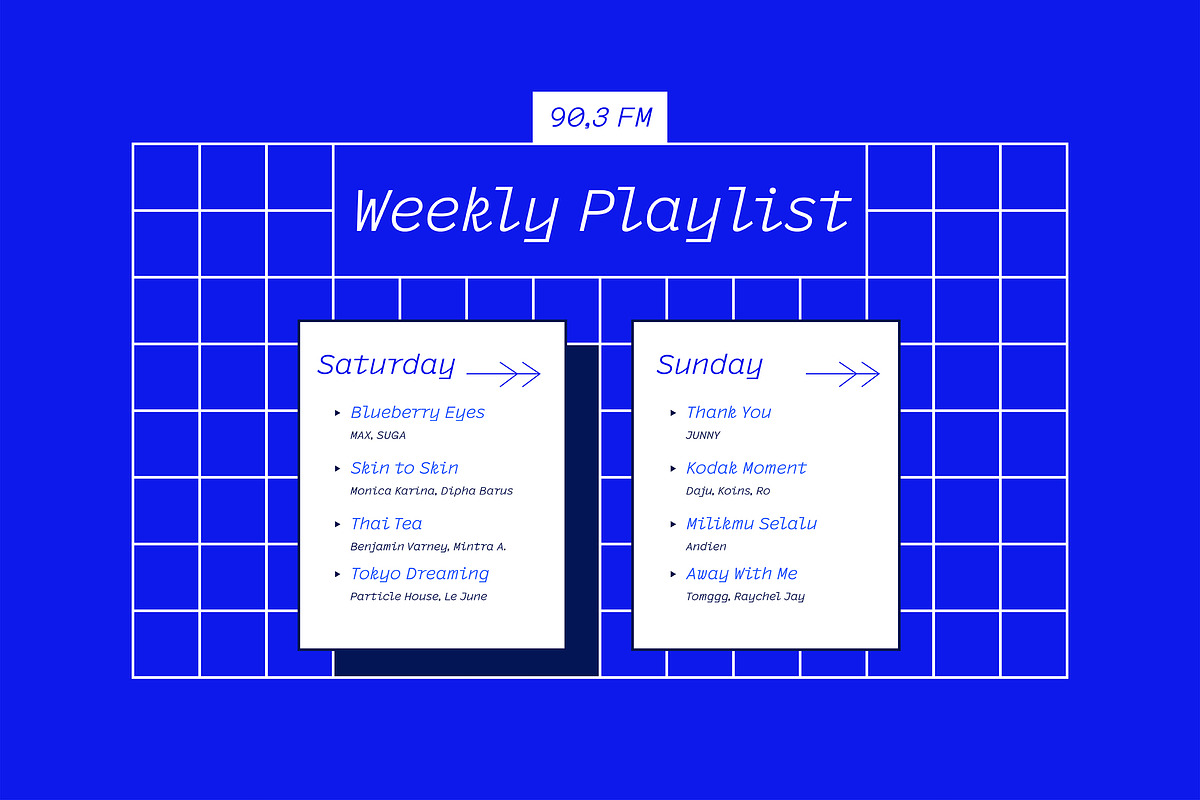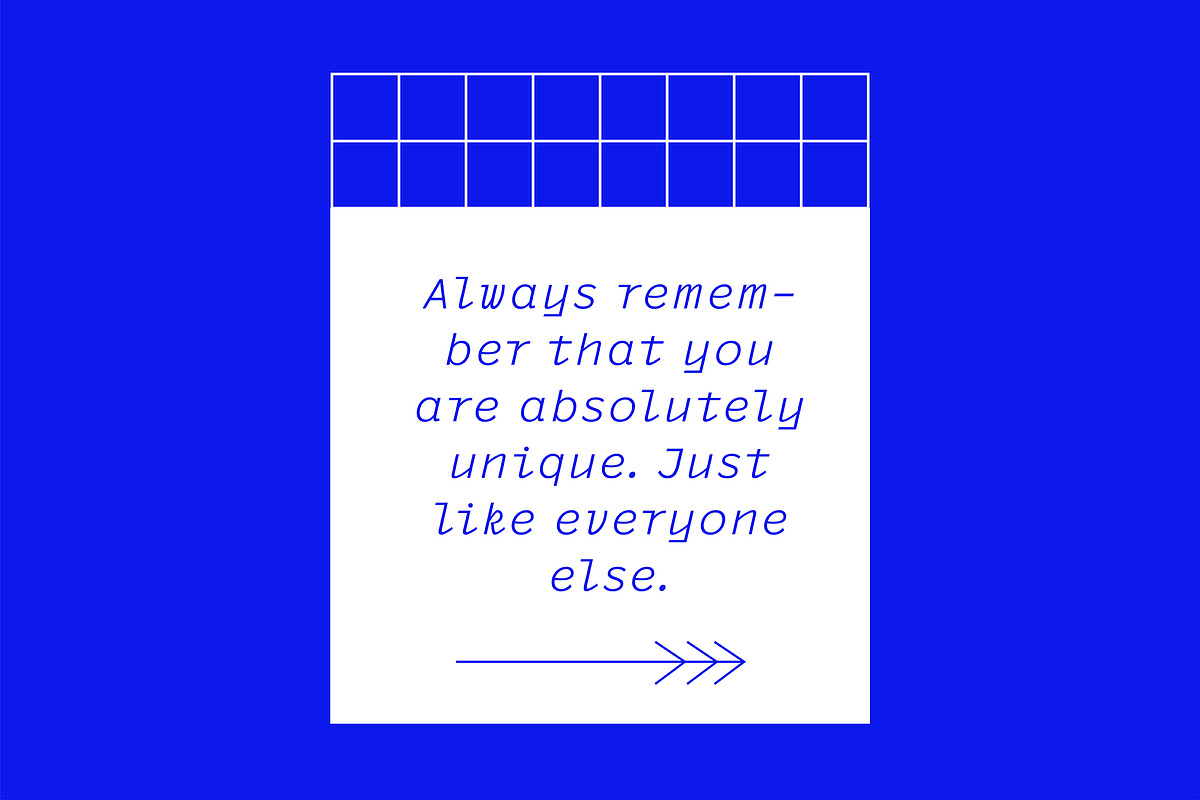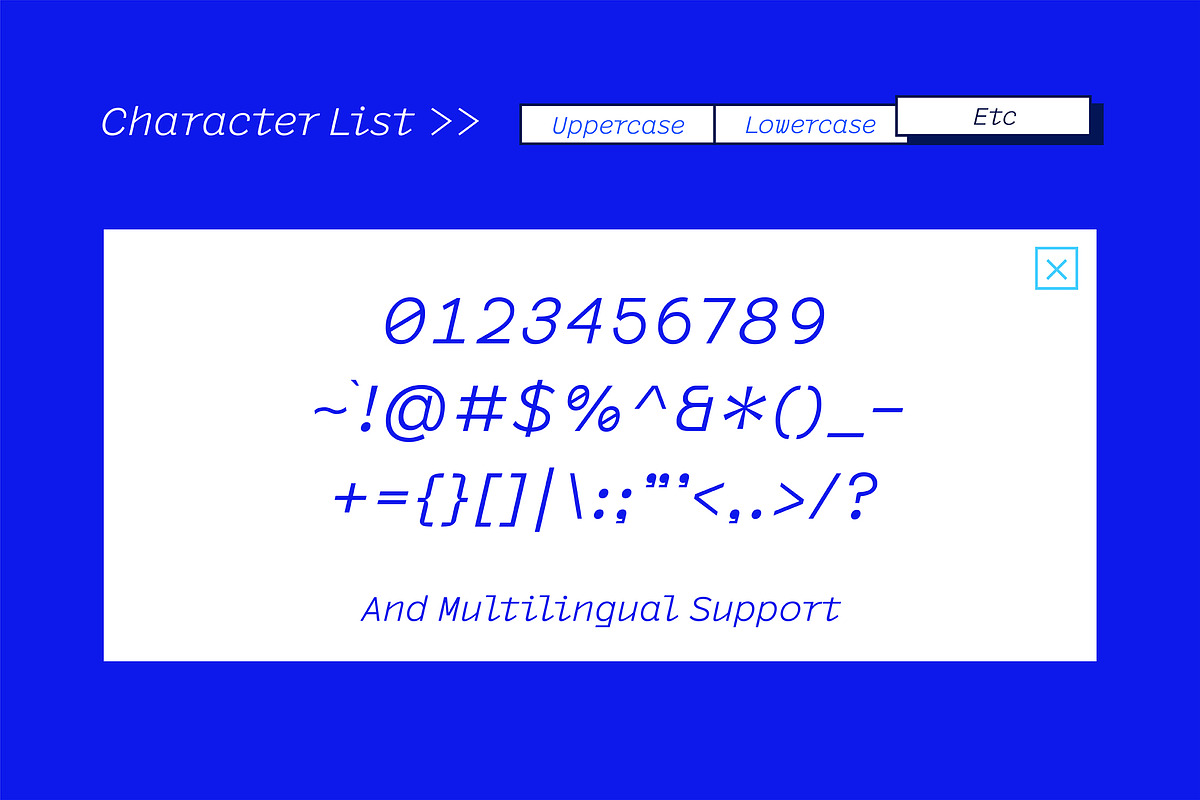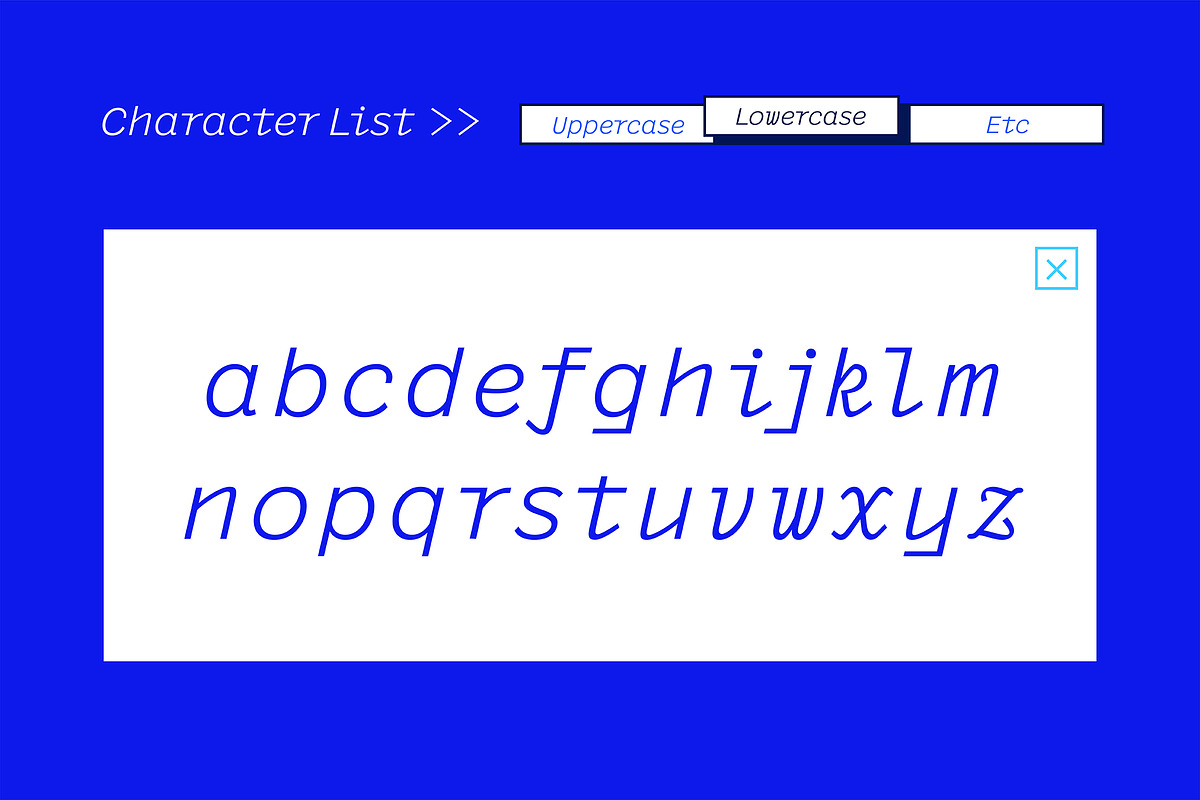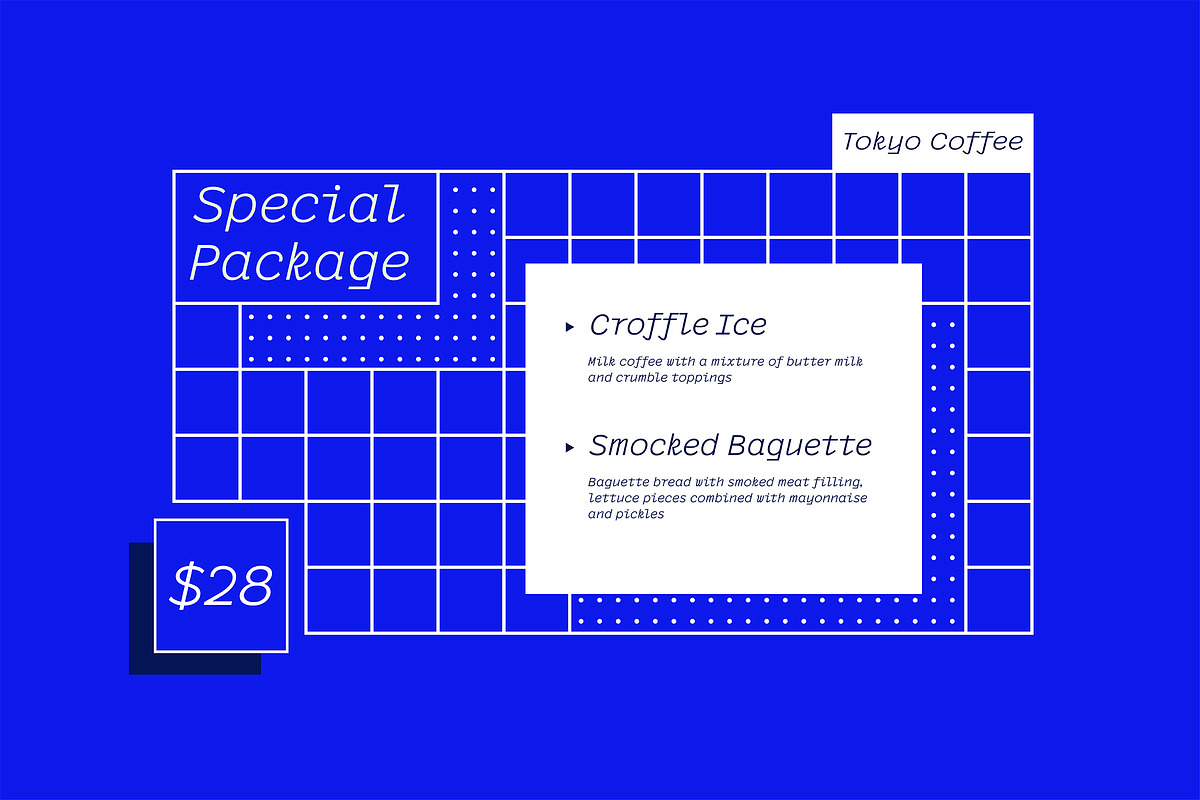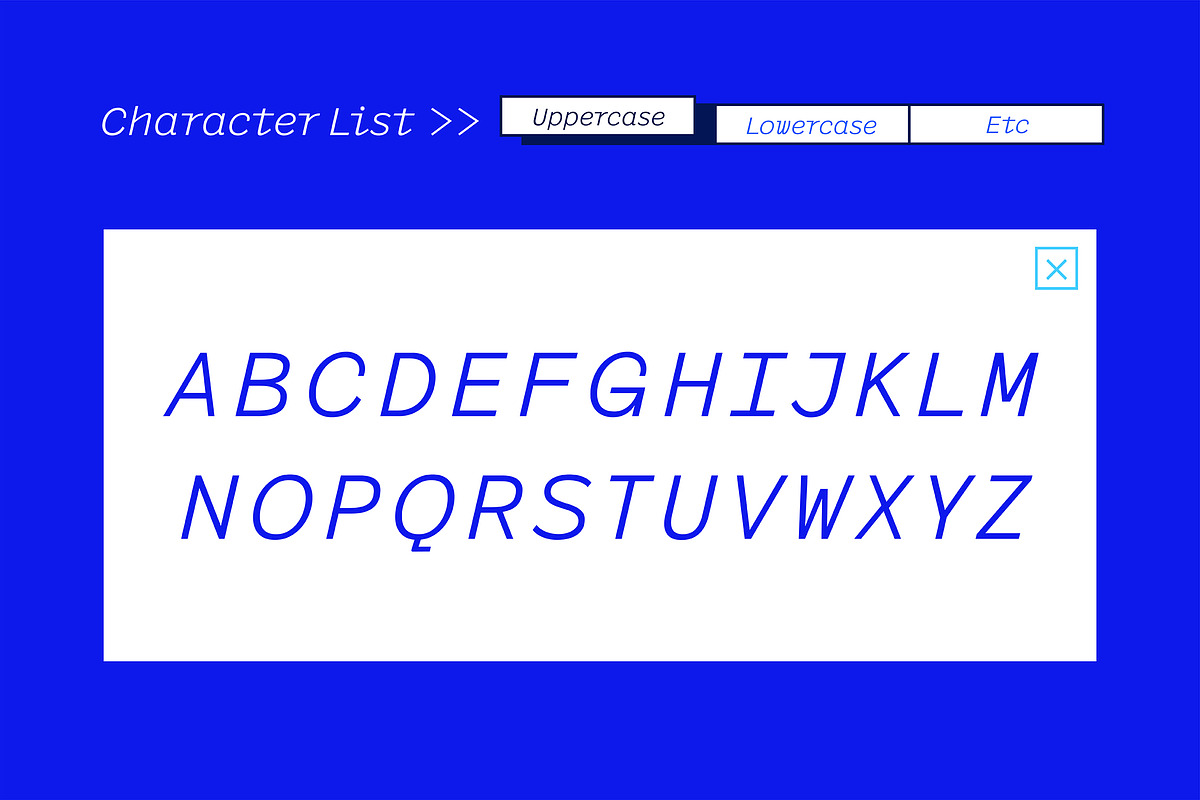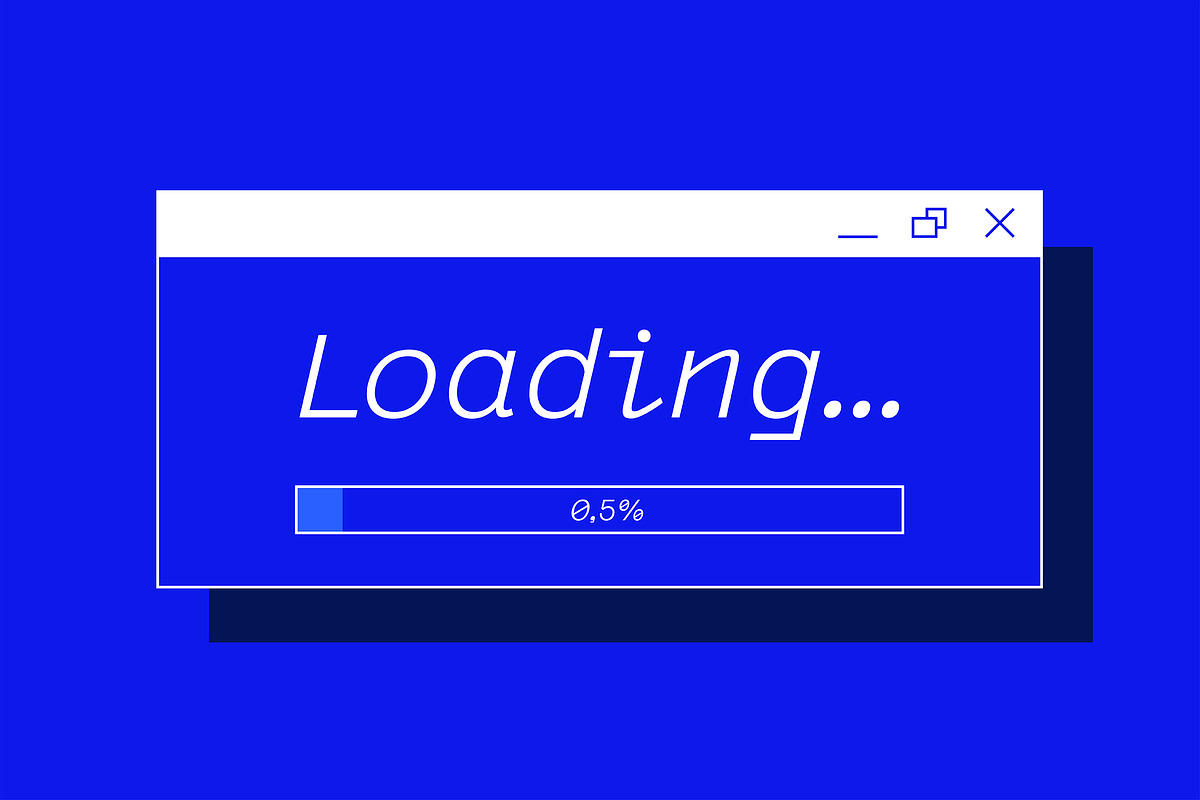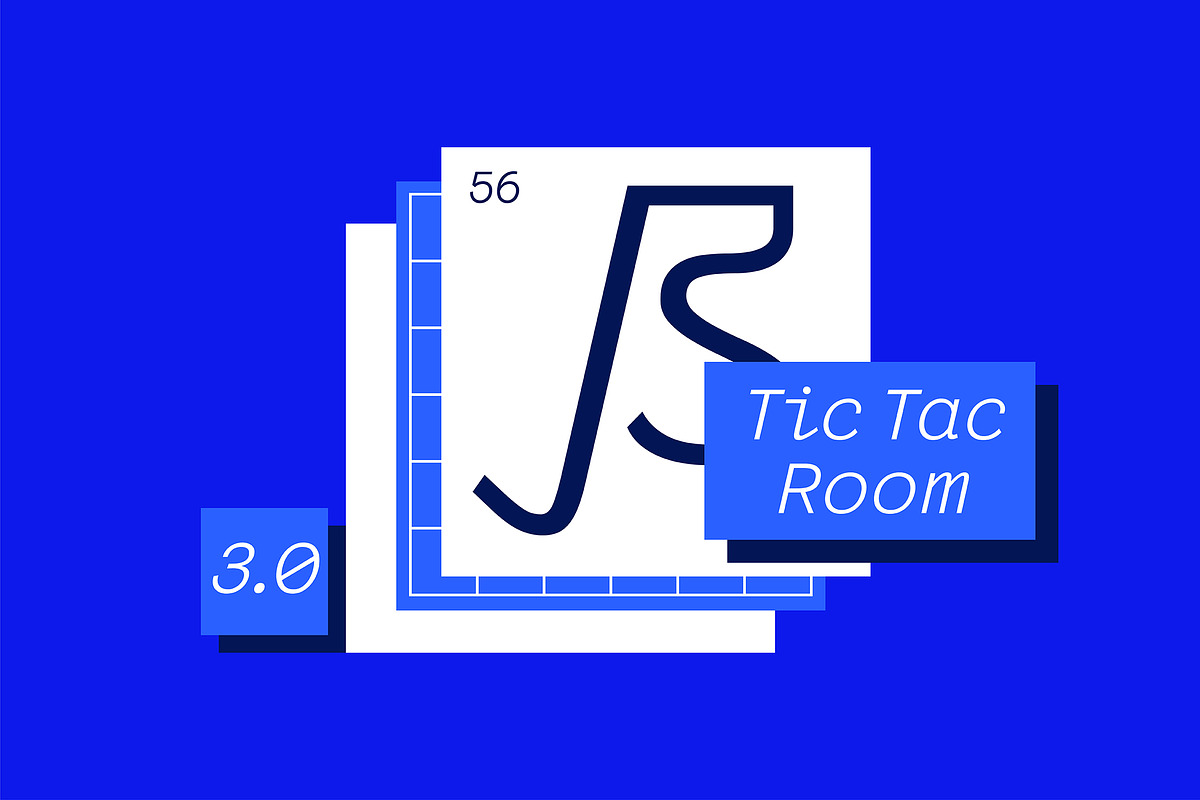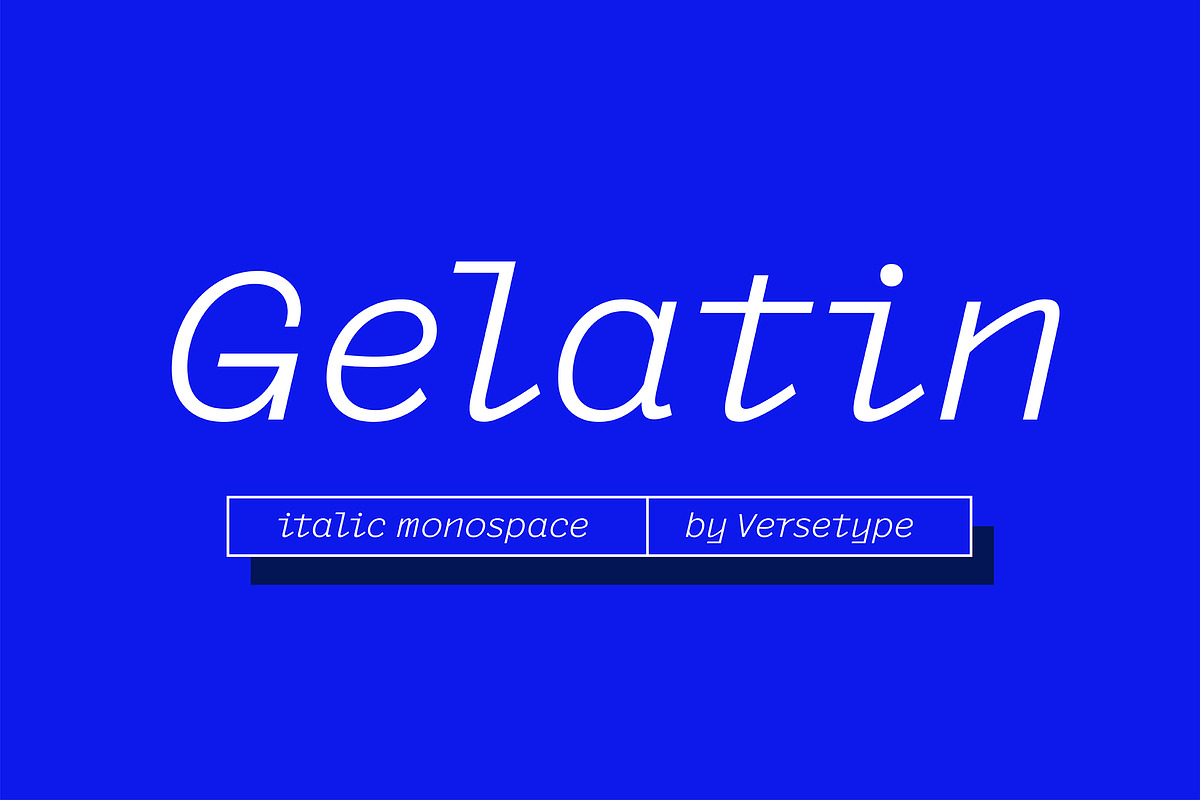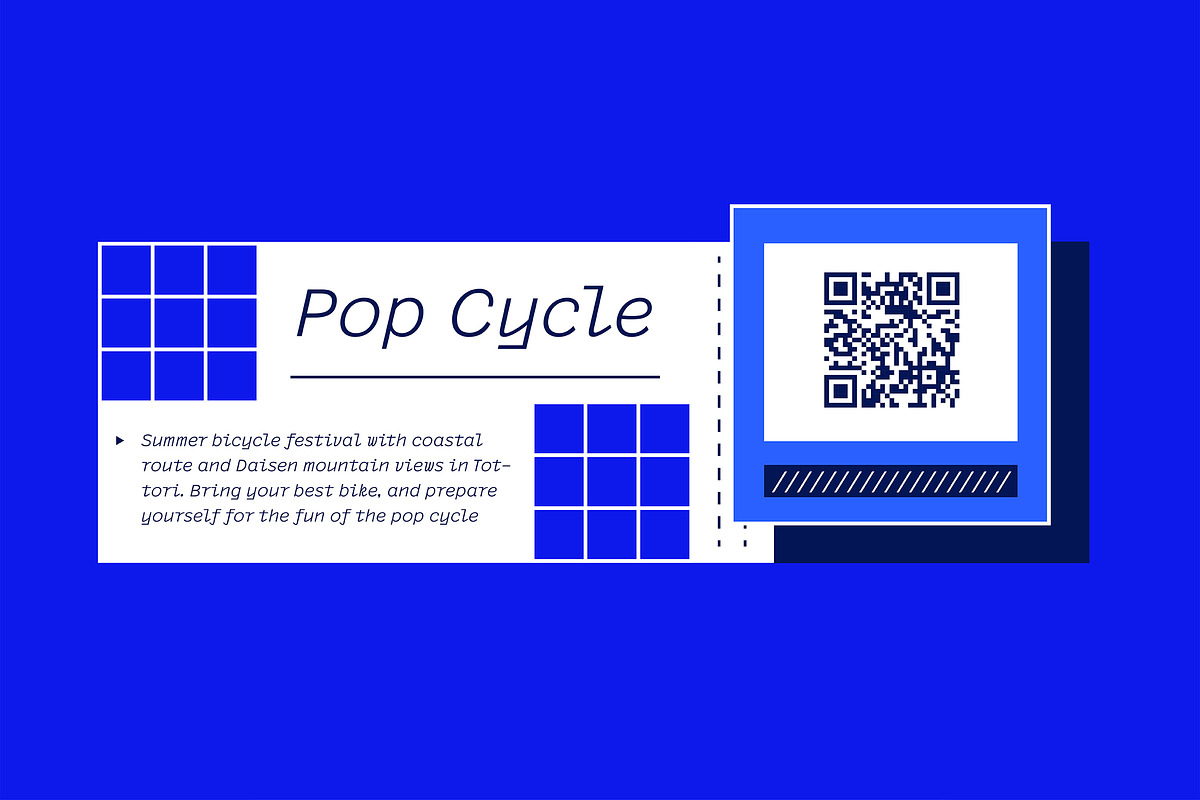
Gelatin Monospace
Gelatin is a font made in monospace style with a blend of italic style.
Gelatin has a thin thickness, perfect for all your minimalist design needs. Especially with geometric ornaments and modern accents, it will make your design stand out.
Gelatin is designed for branding needs, logo design, creative content, interior design, interactive design and much more.